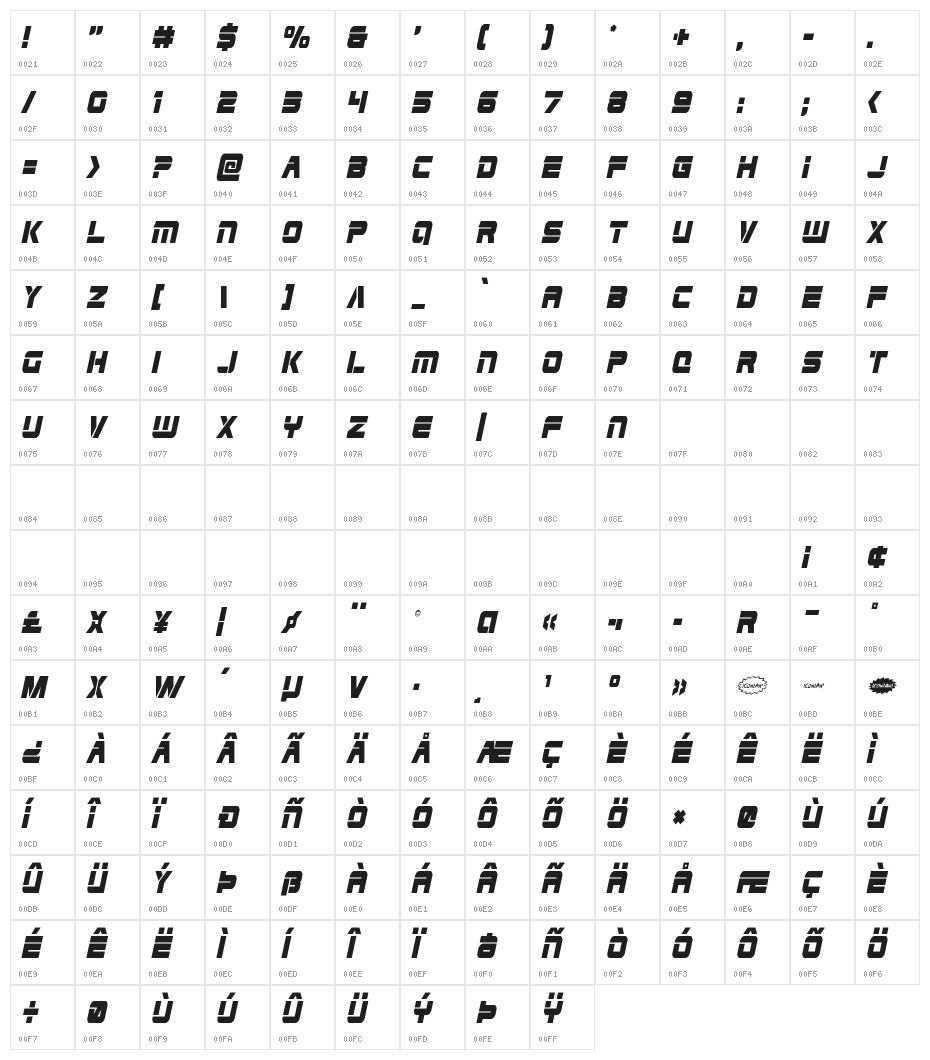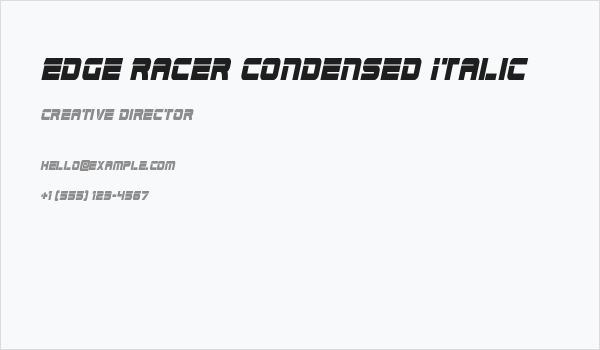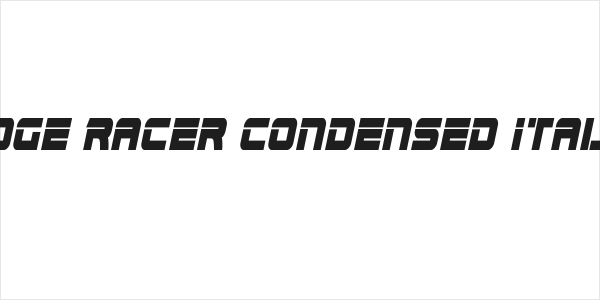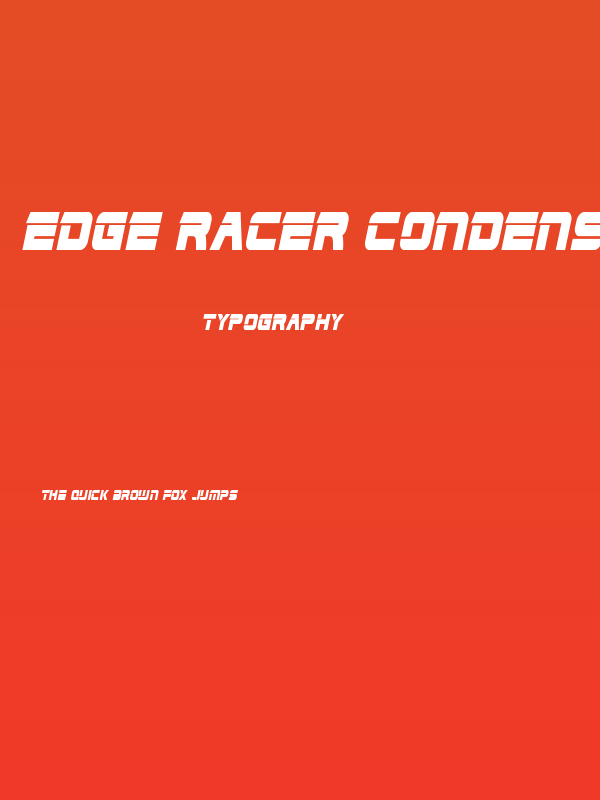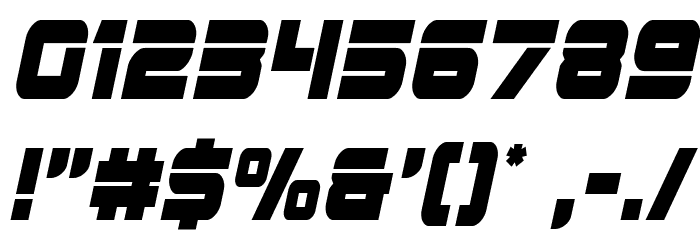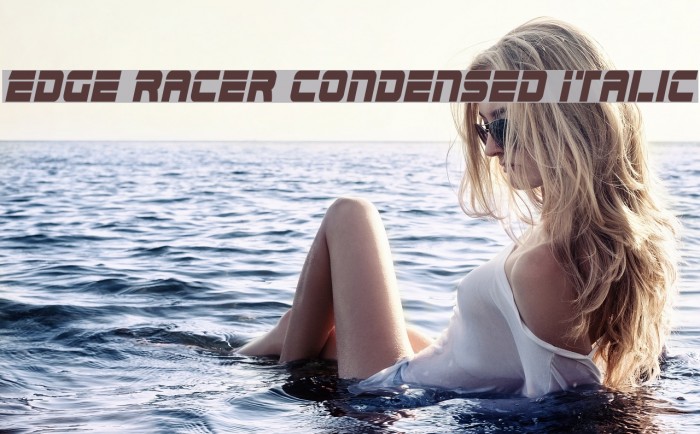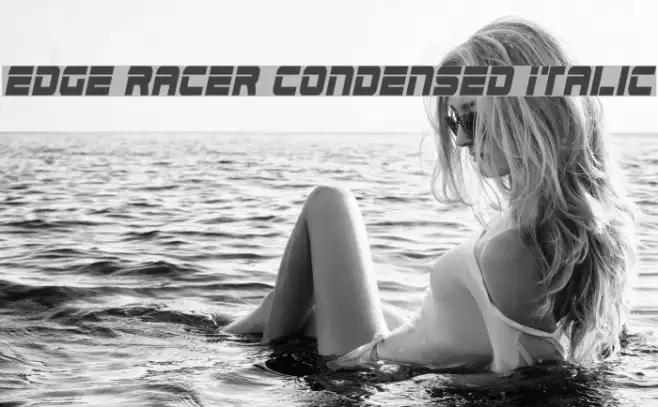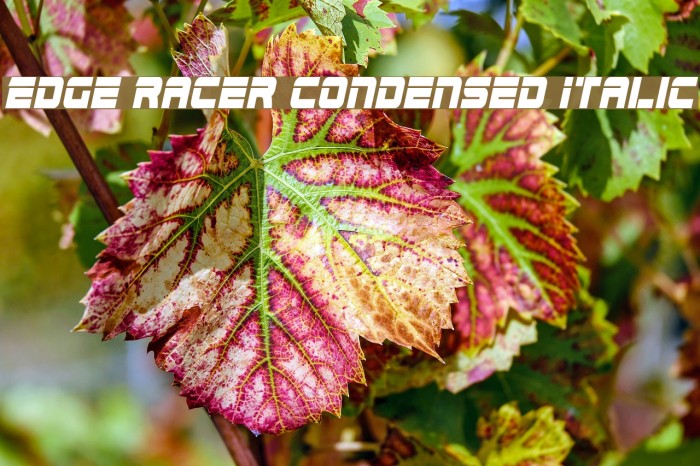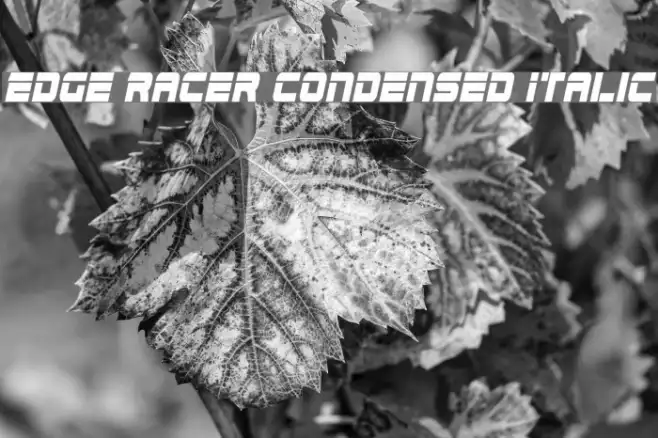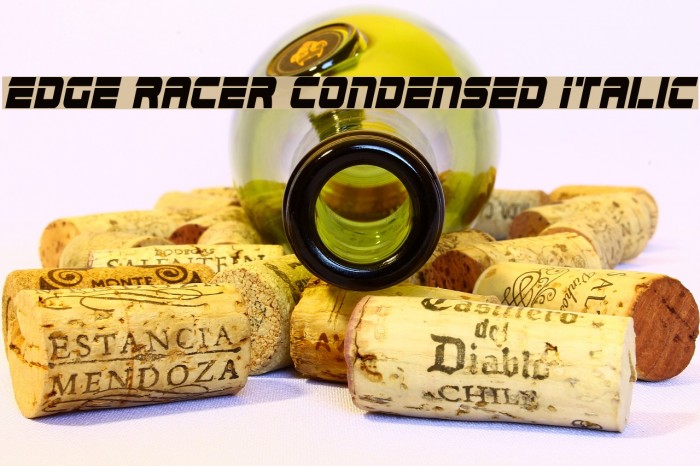
Edge Racer Condensed Italic Font
Edge Racer Condensed Italic Description
This font features a bold, italicized style with a condensed width, giving it a sleek and modern appearance. The characters are designed with sharp angles and a futuristic aesthetic, making it ideal for projects that require a dynamic and energetic look. The uppercase and lowercase letters maintain a consistent style, with a strong emphasis on diagonal lines and geometric shapes. The numerals and special characters are equally bold and stylized, ensuring a cohesive appearance across all text elements. The font's condensed nature allows for efficient use of space, making it suitable for headlines and titles where impact is essential.
| Proposed Projects | Ideal for automotive branding, sports event posters, video game titles, and tech-related advertisements. |